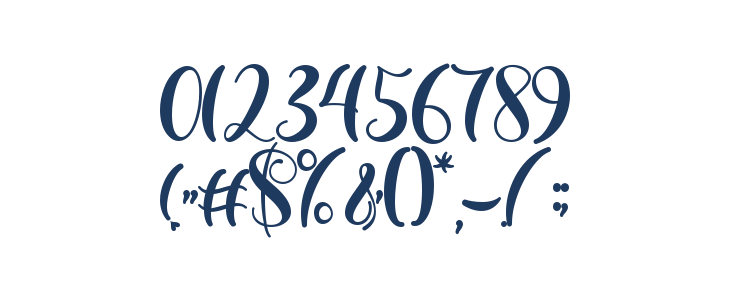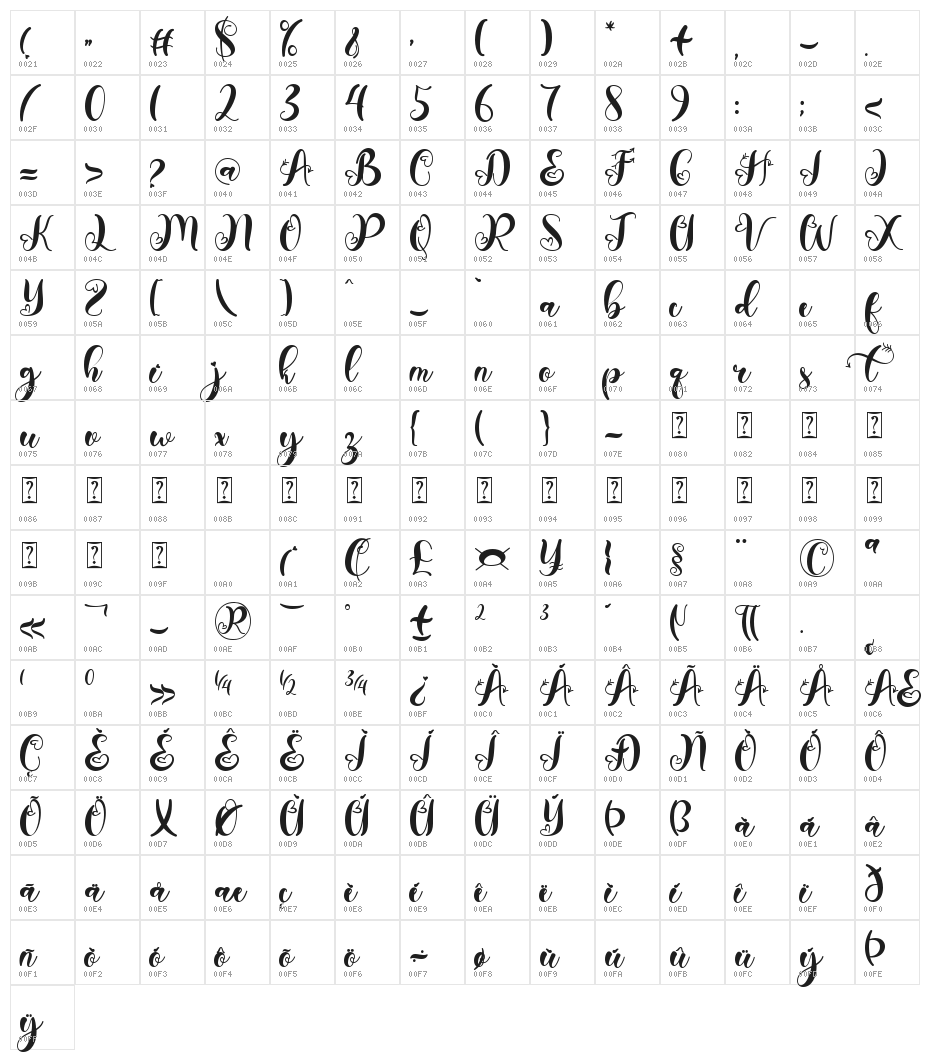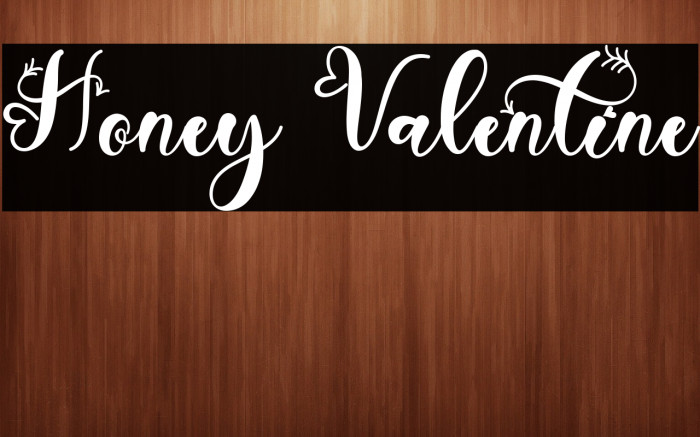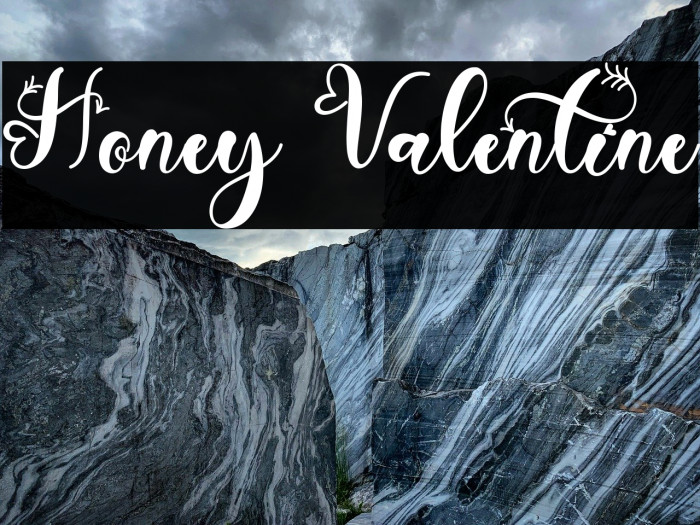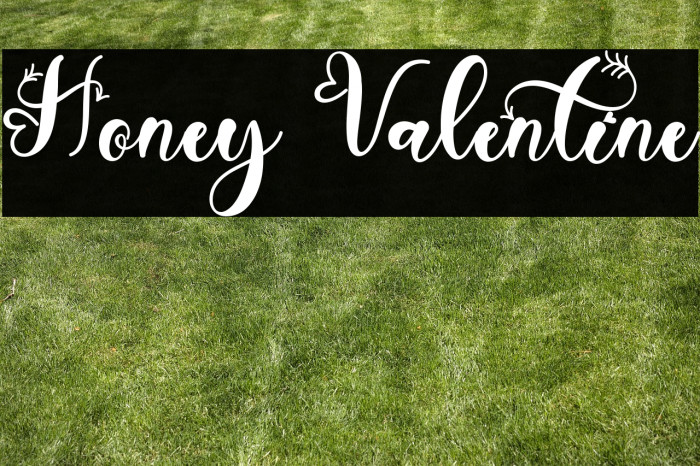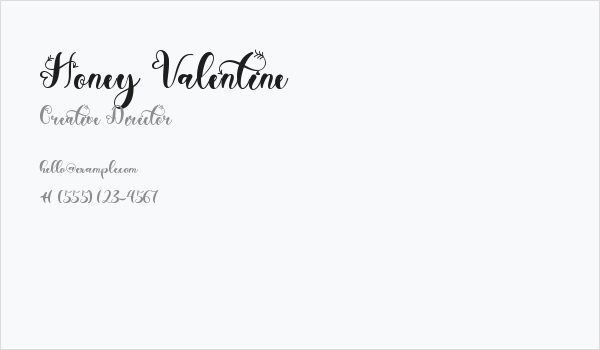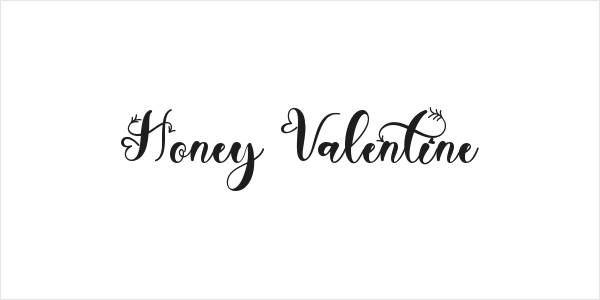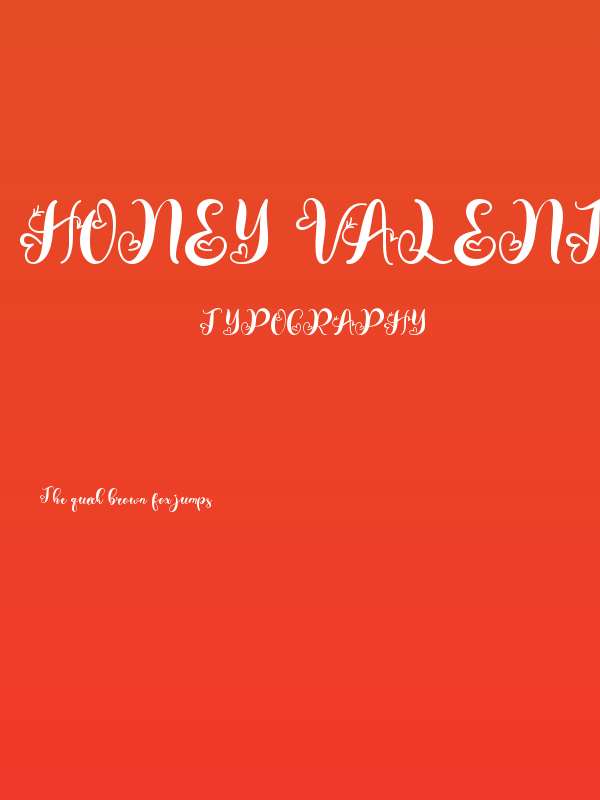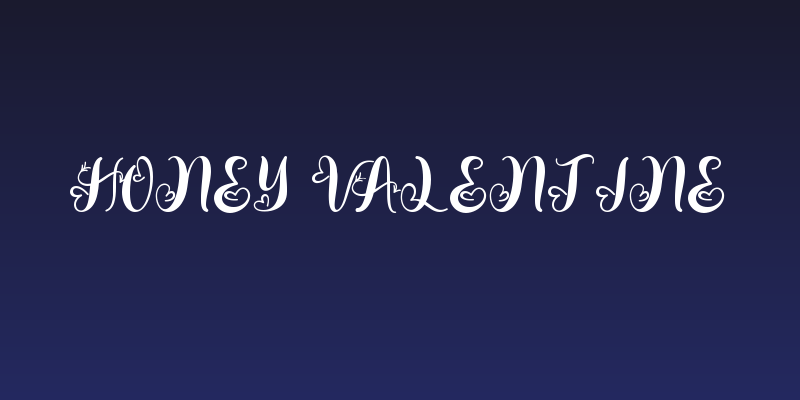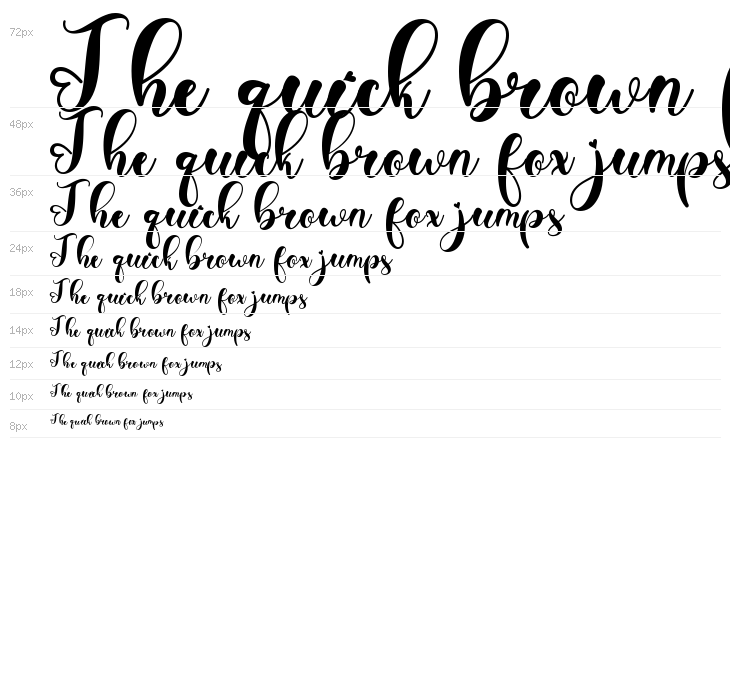
Honey Valentine Font
Honey Valentine Description
This font exudes a romantic and whimsical charm, characterized by its flowing script style and elegant swashes. The uppercase letters are adorned with delicate curls and loops, adding a touch of sophistication and playfulness. The lowercase letters maintain a consistent fluidity, with some characters featuring unique flourishes that enhance their visual appeal. The numerals are bold and curvaceous, complementing the overall aesthetic. Special characters are thoughtfully designed to match the font's ornate style, making it suitable for creative and decorative purposes.
| Proposed Projects | Ideal for wedding invitations, greeting cards, branding, and decorative projects. |